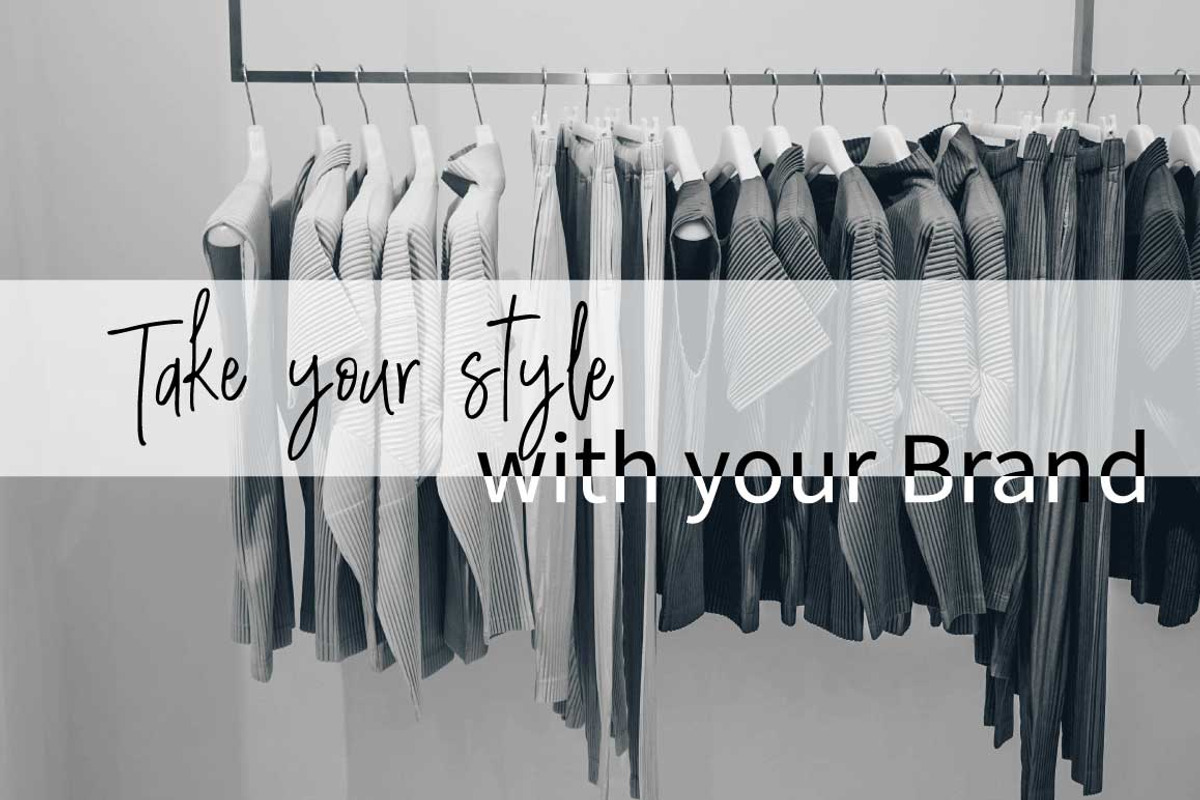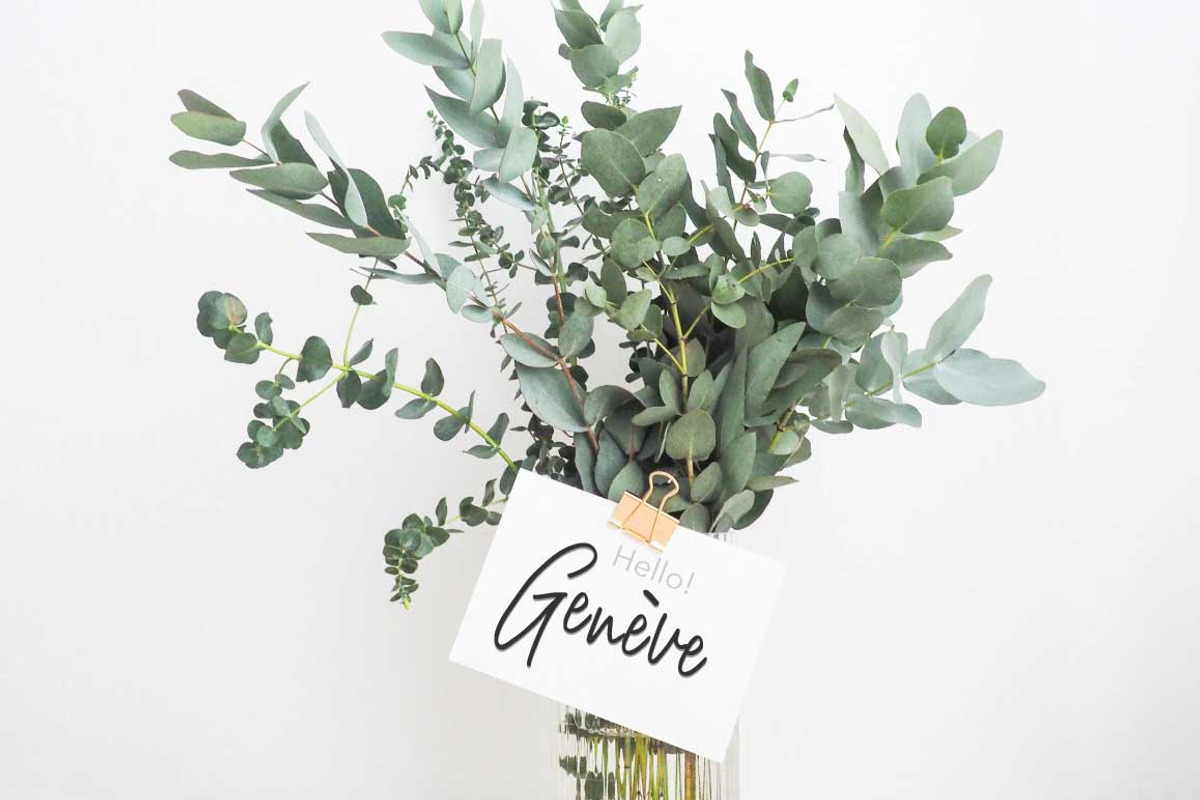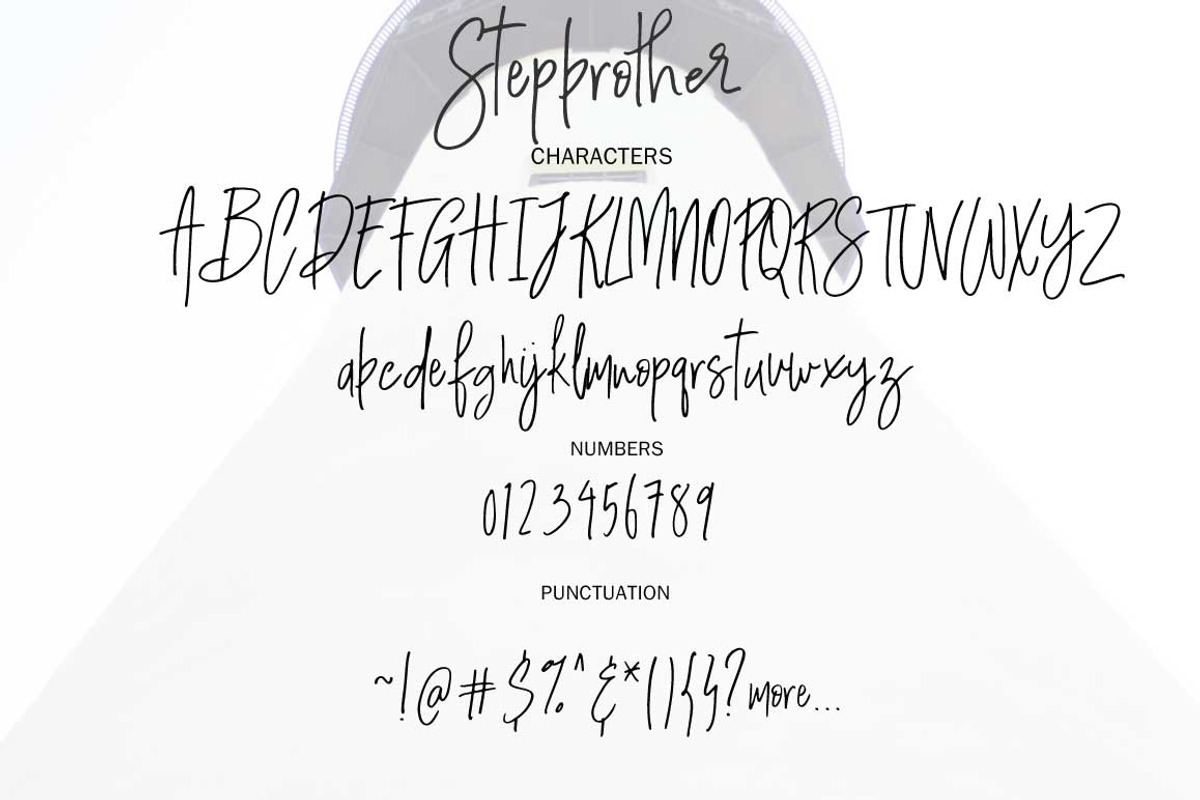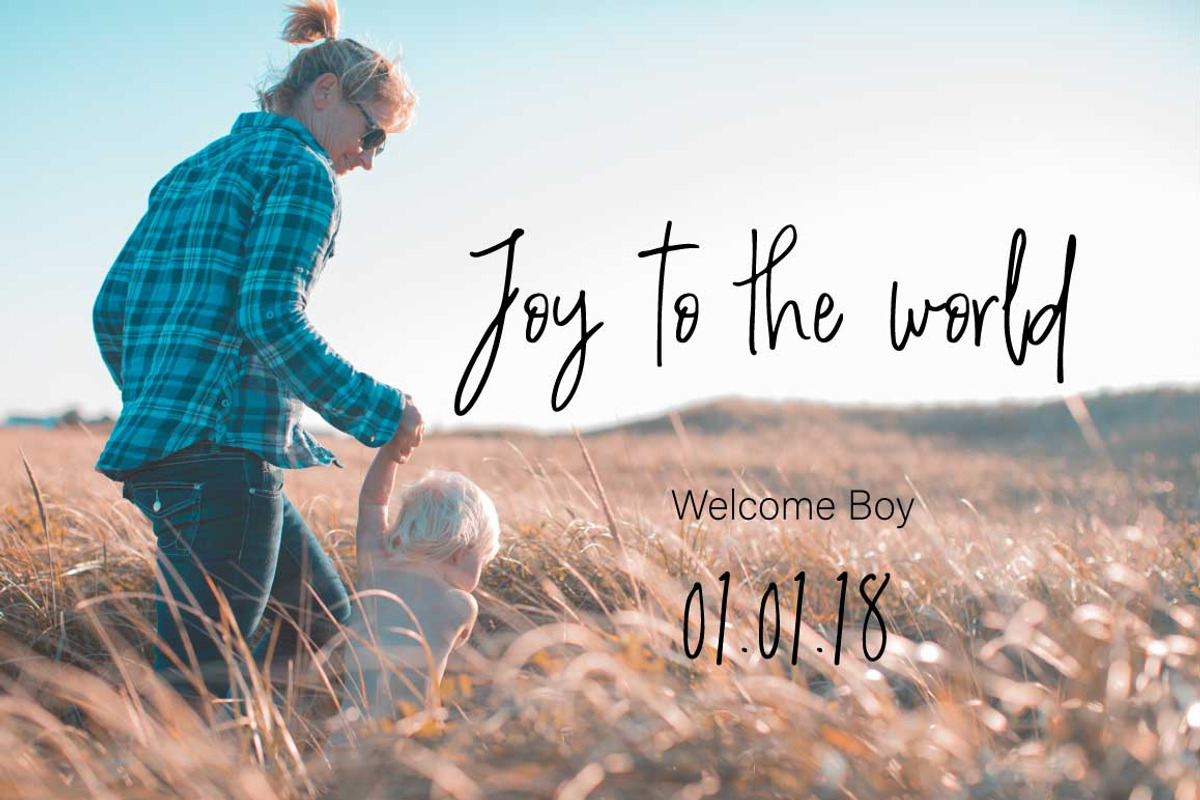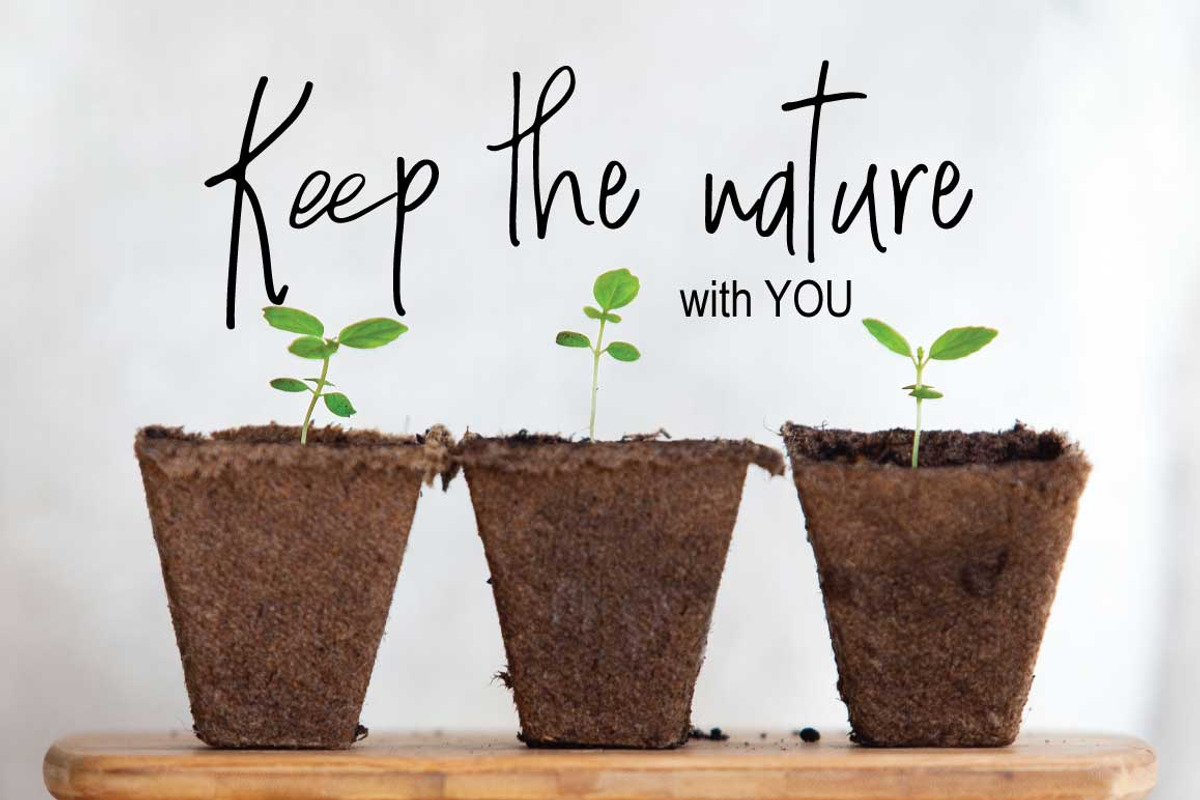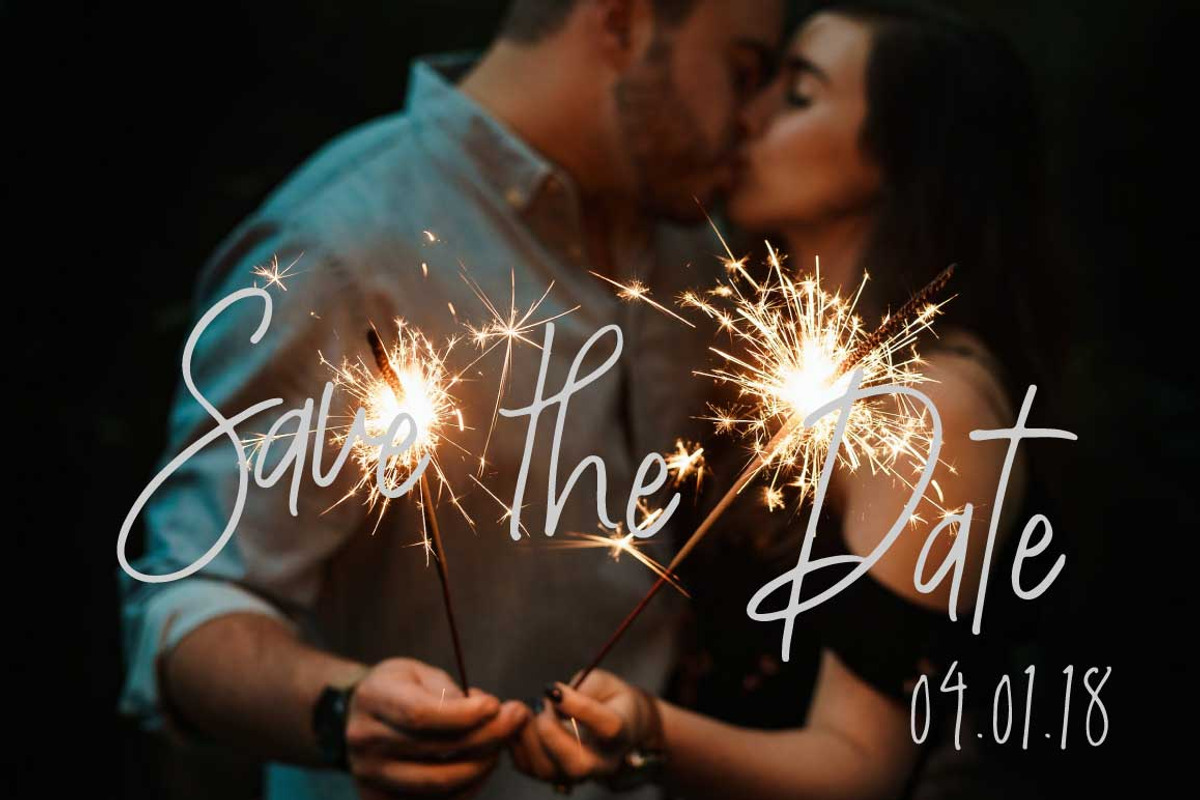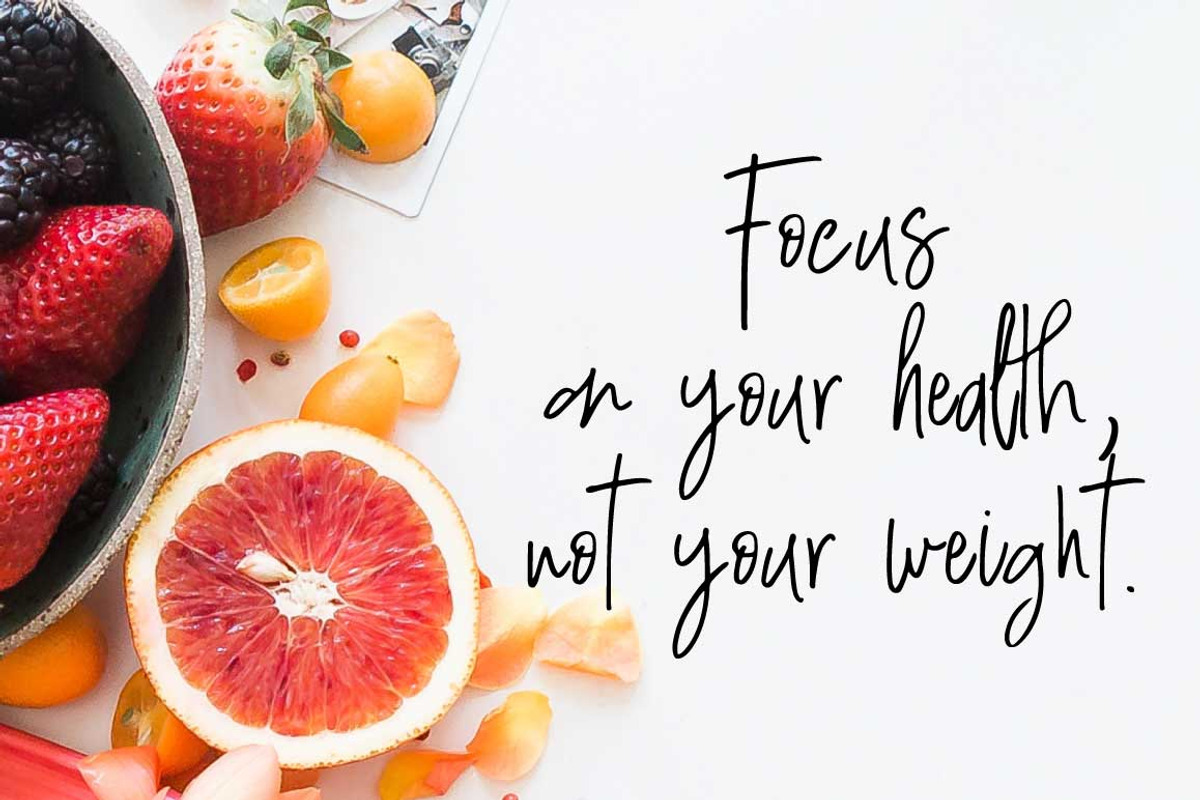
Stepbrother | Chic Script Font
Stepbrother is a chic, Every single letter has been creative carefully This font is a little romantic script designed for making your set of invitations, quotes, blog posts, and more completely beautiful
Multilingual support is included for Western European
Stepbrother | Chic Script Font by Artstudio fits naturally into Branding, posters, packaging, typography.